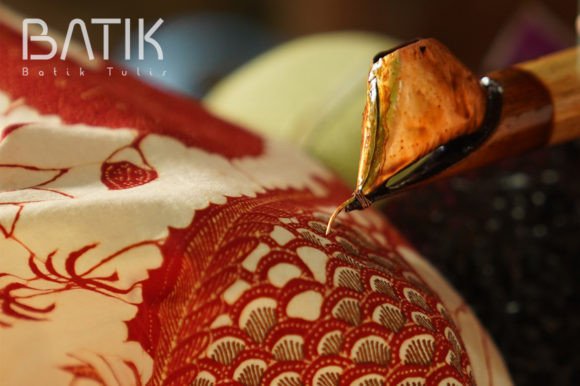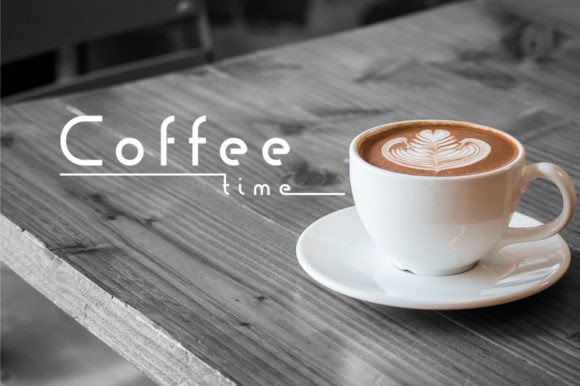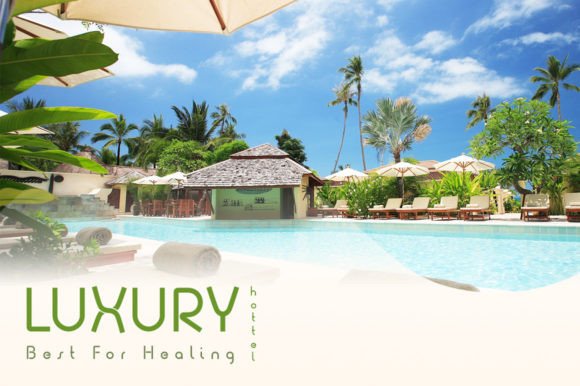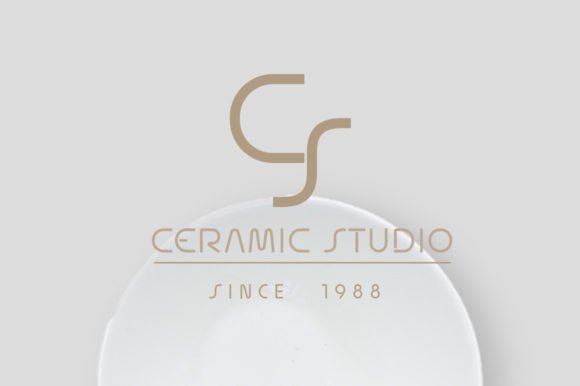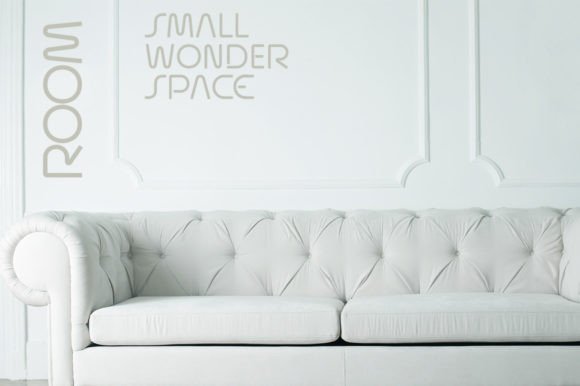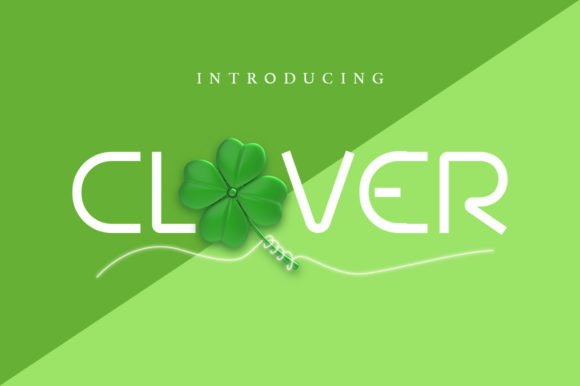
Clover Font: Elevate Your Designs with a Fresh and Modern Twist
In the world of typography, fonts play a crucial role in making or breaking a design. A perfect font can instantly elevate your project, making it more engaging, readable, and visually appealing. If you’re a designer, crafter, or simply a creative enthusiast, you’re likely always on the lookout for unique and versatile fonts to add to your arsenal. That’s where the Clover Font comes in – a fun, modern, and display font that’s perfect for making your designs stand out.
What is Clover Font?
Clover Font is a contemporary and fresh display font designed to add a touch of modernity to your creative projects. Its unique and stylish lettering makes it perfect for a wide range of applications, from branding and advertising to crafting and DIY projects. Whether you’re looking to create eye-catching headlines, bold statements, or simply add a decorative touch to your designs, Clover Font is an excellent choice.
Key Features of Clover Font
- Modern and Fresh Design: Clover Font boasts a sleek and modern design that’s sure to grab attention. Its clean lines, subtle curves, and balanced proportions make it a versatile font suitable for various design applications.
- Contemporary and Trendy: This font is perfect for designers and crafters who want to stay on top of the latest trends. Its fresh and modern look makes it ideal for projects that require a youthful and vibrant feel.
- Highly Readable: Despite its decorative nature, Clover Font remains highly readable, even at smaller sizes. This makes it perfect for use in body text, captions, or other applications where legibility is crucial.
- Multilingual Support: Clover Font supports multiple languages, making it a great choice for designers working on international projects or those who want to cater to a diverse audience.
Use Cases for Clover Font
Clover Font’s versatility makes it suitable for a wide range of design applications. Here are some use cases to get you started:
- Branding and Logo Design: Use Clover Font to create a unique and memorable logo that reflects your brand’s personality and values.
- Advertising and Marketing: Add a touch of modernity to your ad campaigns and marketing materials with Clover Font’s fresh and eye-catching design.
- Crafting and DIY Projects: Clover Font is perfect for crafters and DIY enthusiasts who want to add a decorative touch to their projects, such as handmade cards, invitations, or signs.
- Web Design: Use Clover Font to create visually appealing headings, titles, and other typography elements for your website or blog.
Tips for Using Clover Font Effectively
To get the most out of Clover Font, here are some tips to keep in mind:
- Pair it with Neutral Fonts: Combine Clover Font with neutral fonts, such as sans-serif or serif fonts, to create visual contrast and hierarchy in your designs.
- Experiment with Colors: Clover Font looks great in bold and bright colors. Don’t be afraid to experiment with different color combinations to find the perfect fit for your design.
- Use it Sparingly: While Clover Font is a beautiful font, it’s best used sparingly to avoid overwhelming the reader. Use it for headings, titles, or emphasis text to create visual interest.
Clover Font is a fun, modern, and display font that’s perfect for designers, crafters, and creative enthusiasts looking to elevate their designs. Its fresh and contemporary design, high readability, and multilingual support make it a versatile font suitable for various applications. By incorporating Clover Font into your design projects, you’ll be able to create visually appealing and engaging designs that stand out from the crowd.